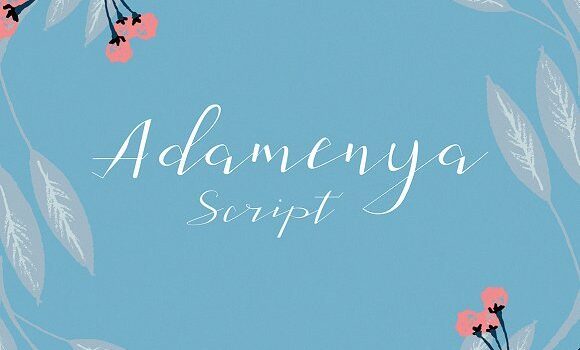
adamenya
Adamenya Font - Featured Image
Adamenya Font – Free Download Introduction to Adamenya Font Adamenya is a handwritten font created by Area Type. 📸 Preview Gallery 4 images 📌 Product Name Adamenya Font 👤 Author Area Type 📂 Category Explore ⬇️ Download Adamenya Font FREE